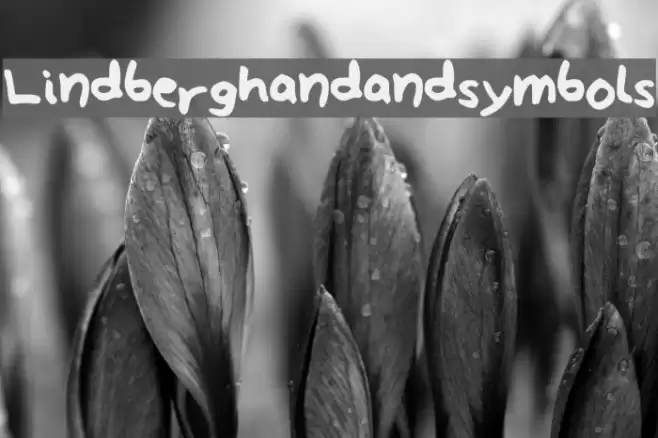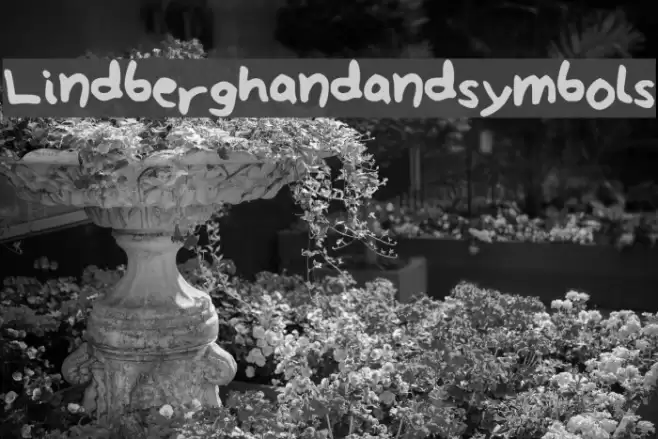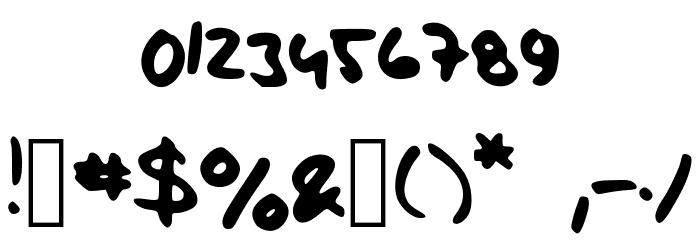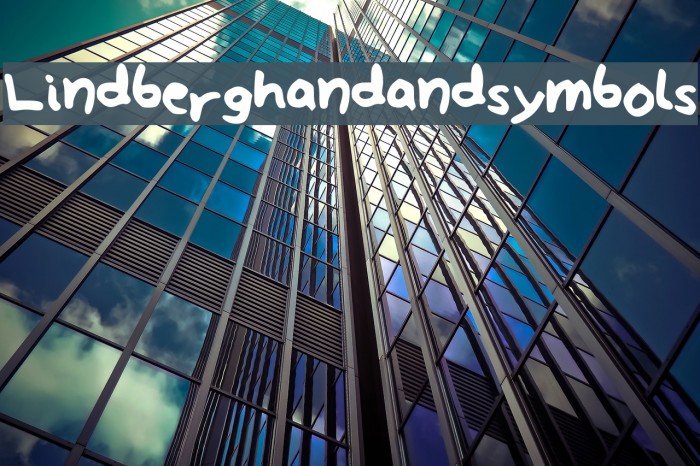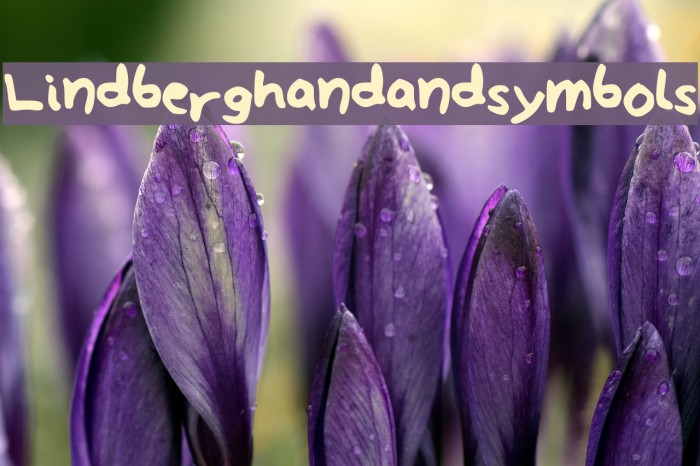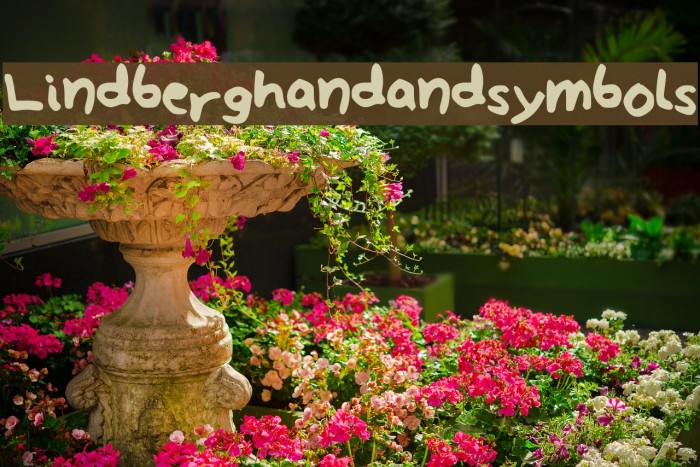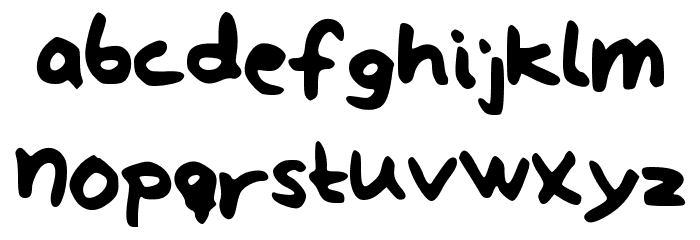
Lindberg_hand_and_symbols Font
Lindberg_hand_and_symbols Description
This playful and bold font features a handwritten style with a casual and friendly appearance. The characters are rounded and slightly irregular, giving it a whimsical and approachable feel. The uppercase and lowercase letters maintain a consistent style, with a slight slant that adds to its informal charm. The numbers and special characters are equally bold and expressive, making them stand out. This font is perfect for projects that require a personal touch or a fun, lighthearted vibe.
A bold, playful handwritten font with a casual and friendly style from Handwritten fonts.
- Proposed Projects: Ideal for children's books, greeting cards, playful branding, and casual invitations.
- Overall Style: Playful, Casual
- Use Case: Headlines, Logos, Informal Text